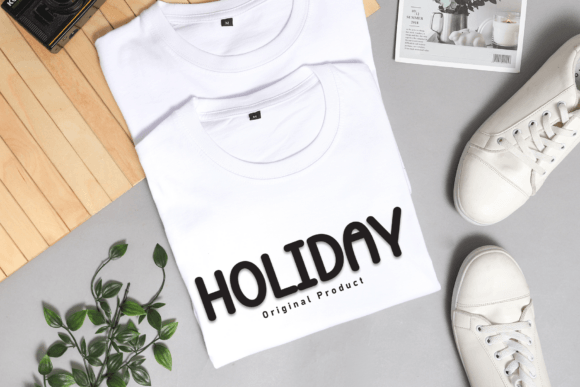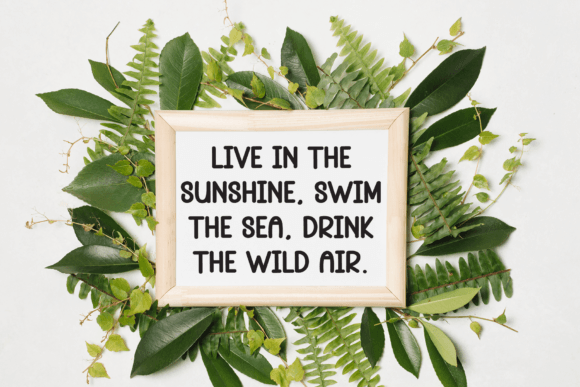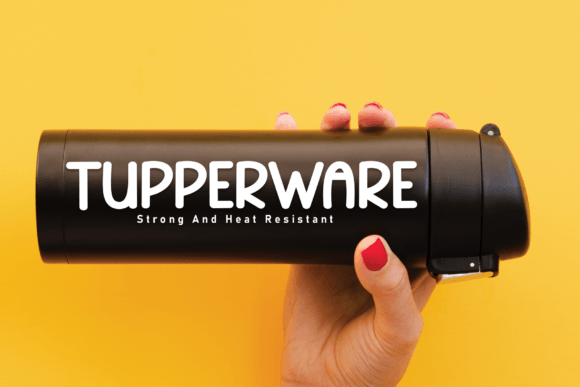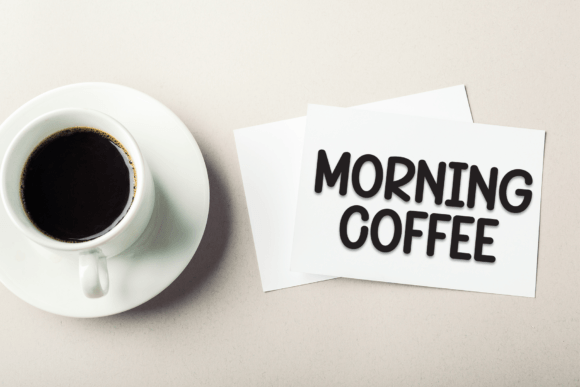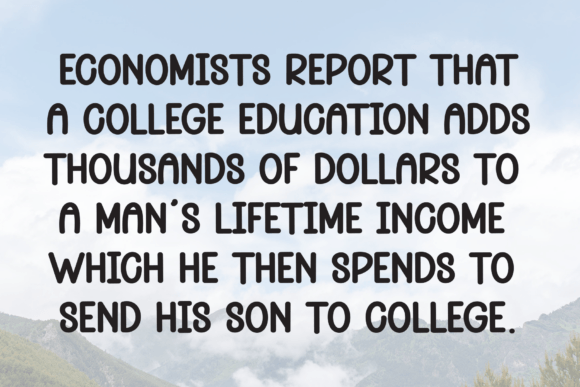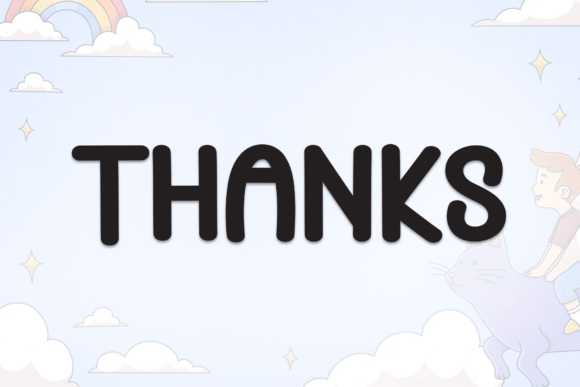
Introducing Good Dreams Font: The Ultimate Handwritten Display Font for Whimsical Designs
Are you tired of using the same old fonts for your designs? Do you want to add a touch of warmth and personality to your messages? Look no further than Good Dreams Font, a charming handwritten display font that’s perfect for crafting wedding invitations, greeting cards, and other design projects that require a dash of fun.
The Charm of Good Dreams Font
Good Dreams Font is a beautifully crafted font that exudes a sense of warmth and friendliness. Its cute and playful vibes make it an ideal choice for designers and crafters who want to add a personal touch to their work. Whether you’re creating wedding invitations, birthday cards, or social media graphics, this font is sure to bring a smile to your audience’s faces.
Perfect for Whimsical Designs
Good Dreams Font is designed to bring a sense of whimsy to your designs. Its sweet and amicable appearance makes it perfect for crafting delightful and engaging content. With this font, you can turn ordinary texts into extraordinary ones that capture the attention of your audience. Whether you’re a designer, crafter, or DIY enthusiast, Good Dreams Font is the perfect choice for anyone who wants to add a touch of magic to their work.
Key Features of Good Dreams Font
- Handwritten display font: Good Dreams Font is a beautifully crafted handwritten font that’s perfect for display purposes.
- Cute and playful vibes: This font exudes a sense of fun and playfulness, making it perfect for designs that require a dash of whimsy.
- Warm and friendly appearance: Good Dreams Font has a warm and friendly appearance that’s sure to make your audience feel special.
- Perfect for wedding invitations and greeting cards: This font is ideal for crafting beautiful wedding invitations, greeting cards, and other celebratory designs.
- Use it for headings and titles: Good Dreams Font is perfect for headings and titles, where you want to make a bold statement.
- Pair it with other fonts: You can pair Good Dreams Font with other fonts to create a unique and interesting design.
- Experiment with different colors: Good Dreams Font looks great in a variety of colors, so don’t be afraid to experiment and find the perfect color for your design.
Benefits of Using Good Dreams Font
There are many benefits to using Good Dreams Font in your designs. Here are a few:
- Adds a personal touch: Good Dreams Font adds a personal touch to your designs, making them more relatable and engaging.
- Creates a whimsical feel: This font creates a whimsical feel that’s perfect for designs that require a dash of fun and playfulness.
- Easy to read: Good Dreams Font is easy to read, making it perfect for designs that require a clear and concise message.
In conclusion, Good Dreams Font is a beautifully crafted handwritten display font that’s perfect for designers and crafters who want to add a touch of warmth and personality to their work. With its cute and playful vibes, this font is ideal for crafting wedding invitations, greeting cards, and other design projects that require a dash of fun. So why wait? Download Good Dreams Font today and start creating whimsical designs that capture the attention of your audience.